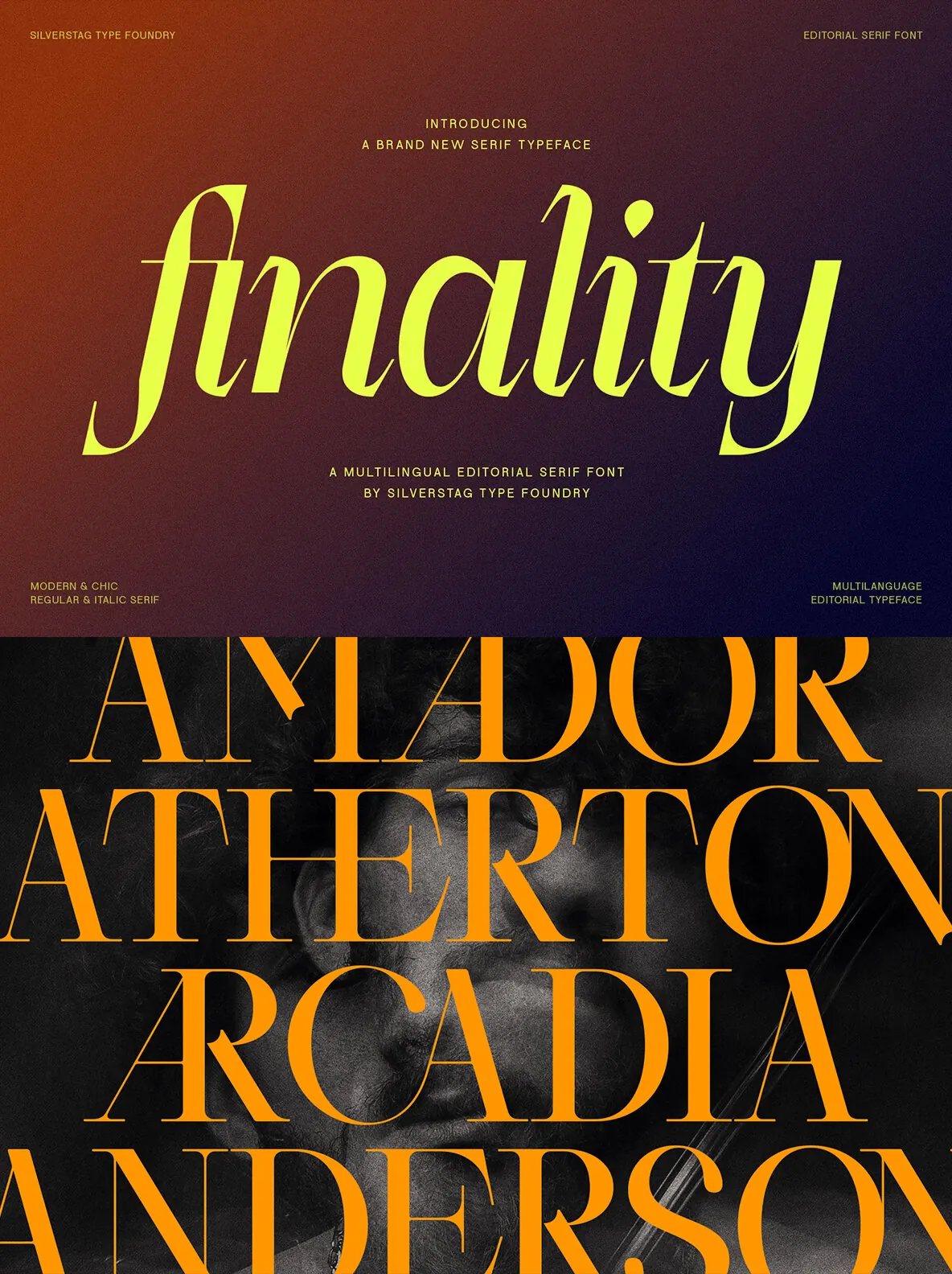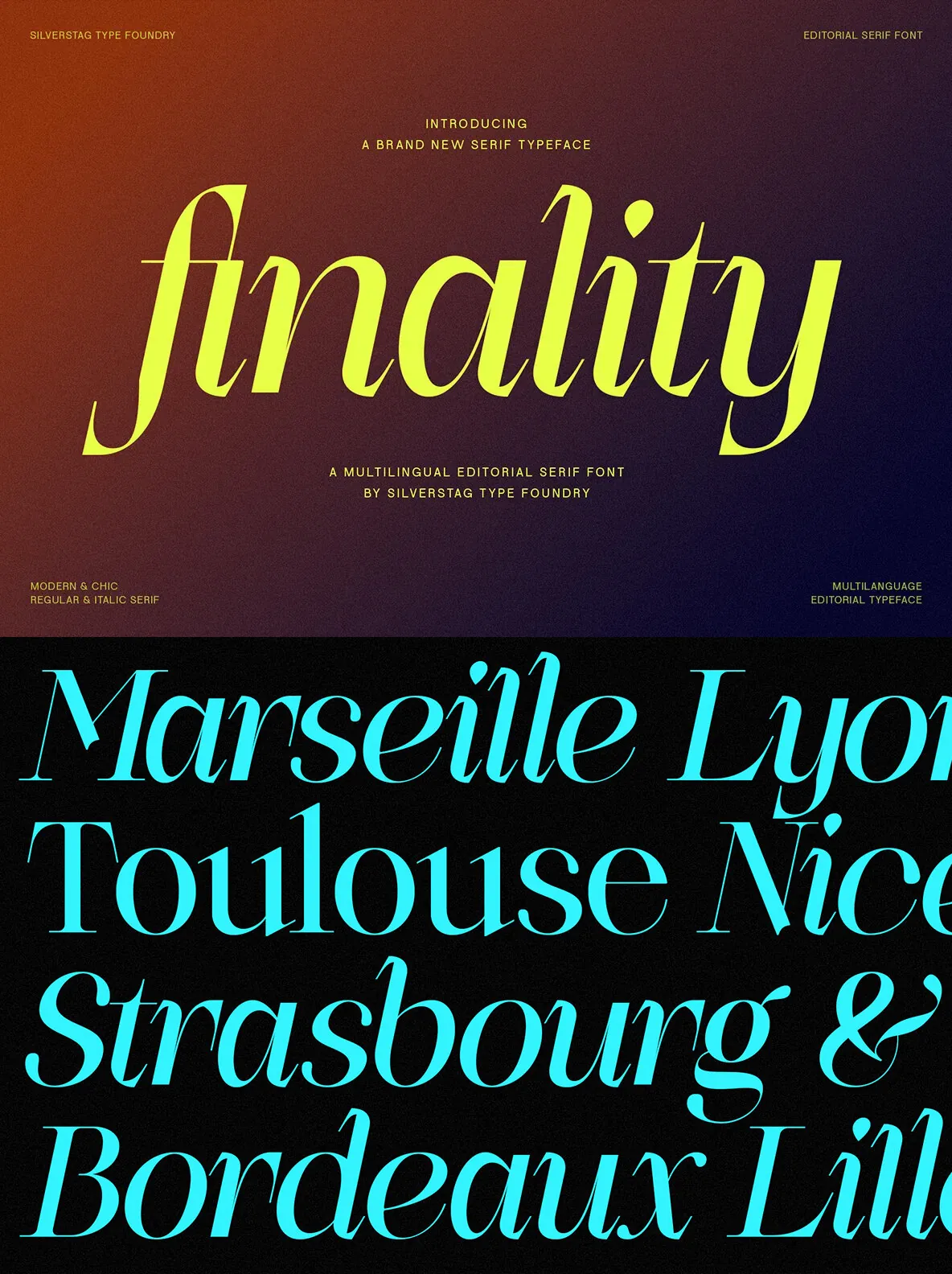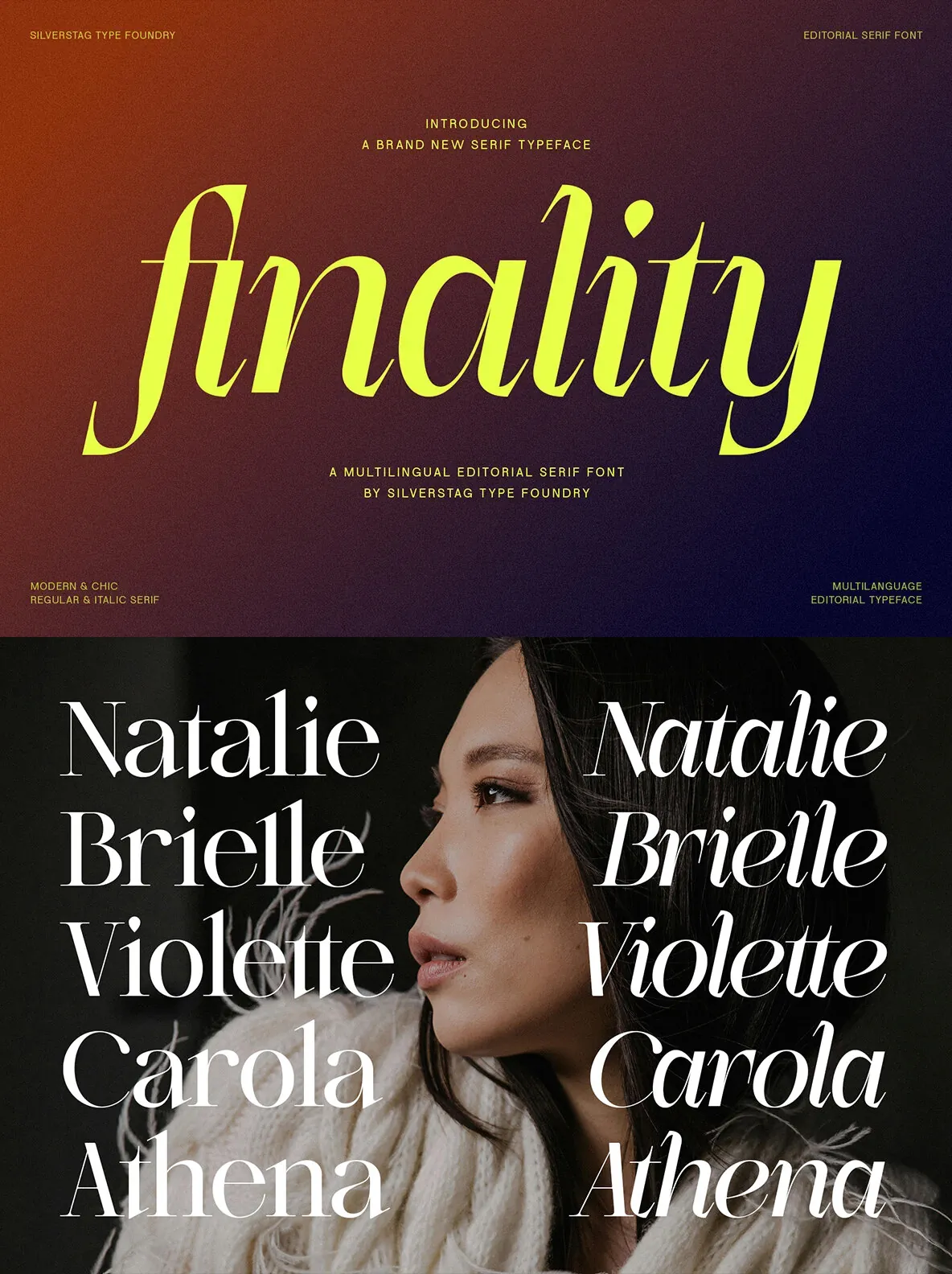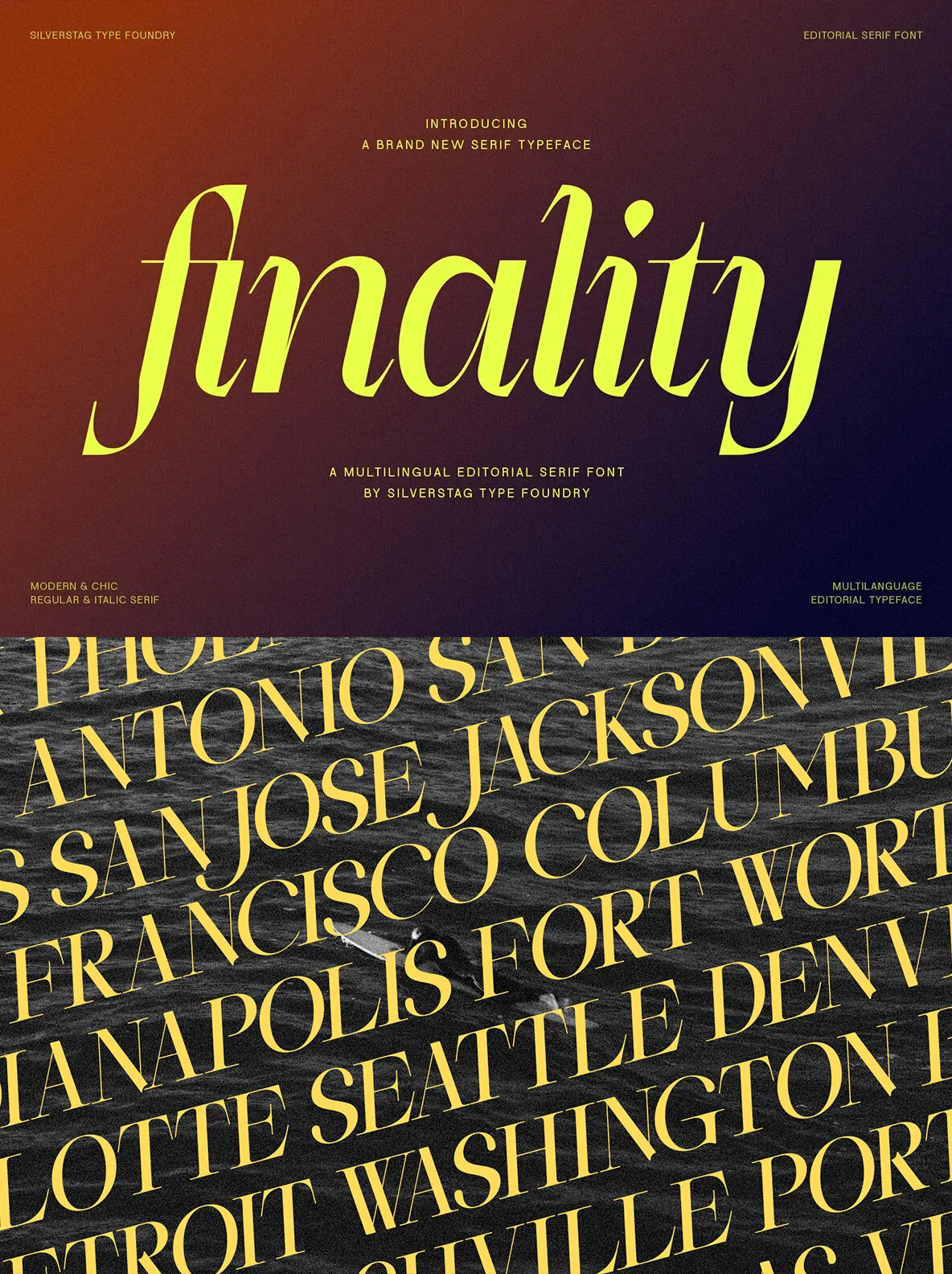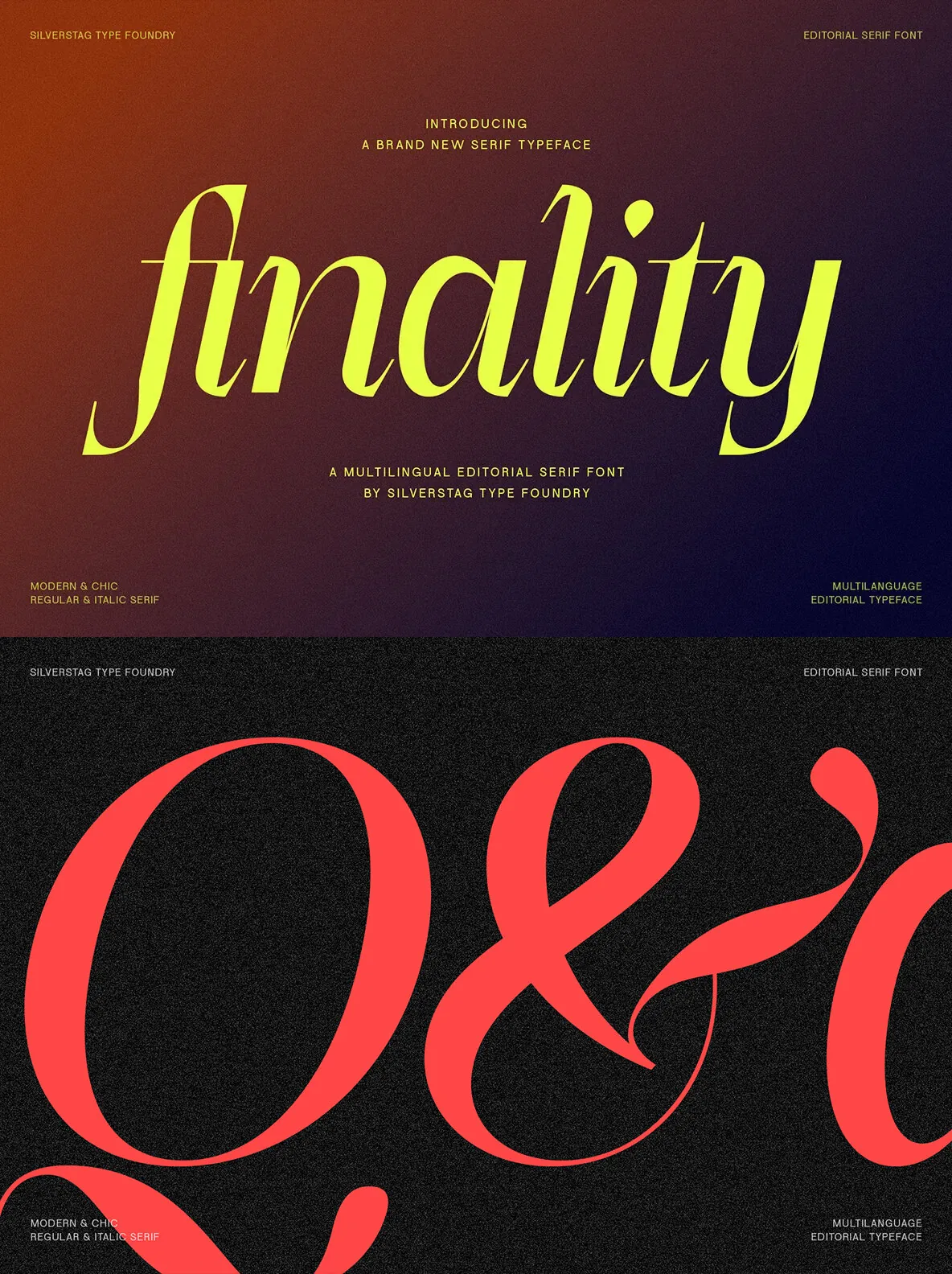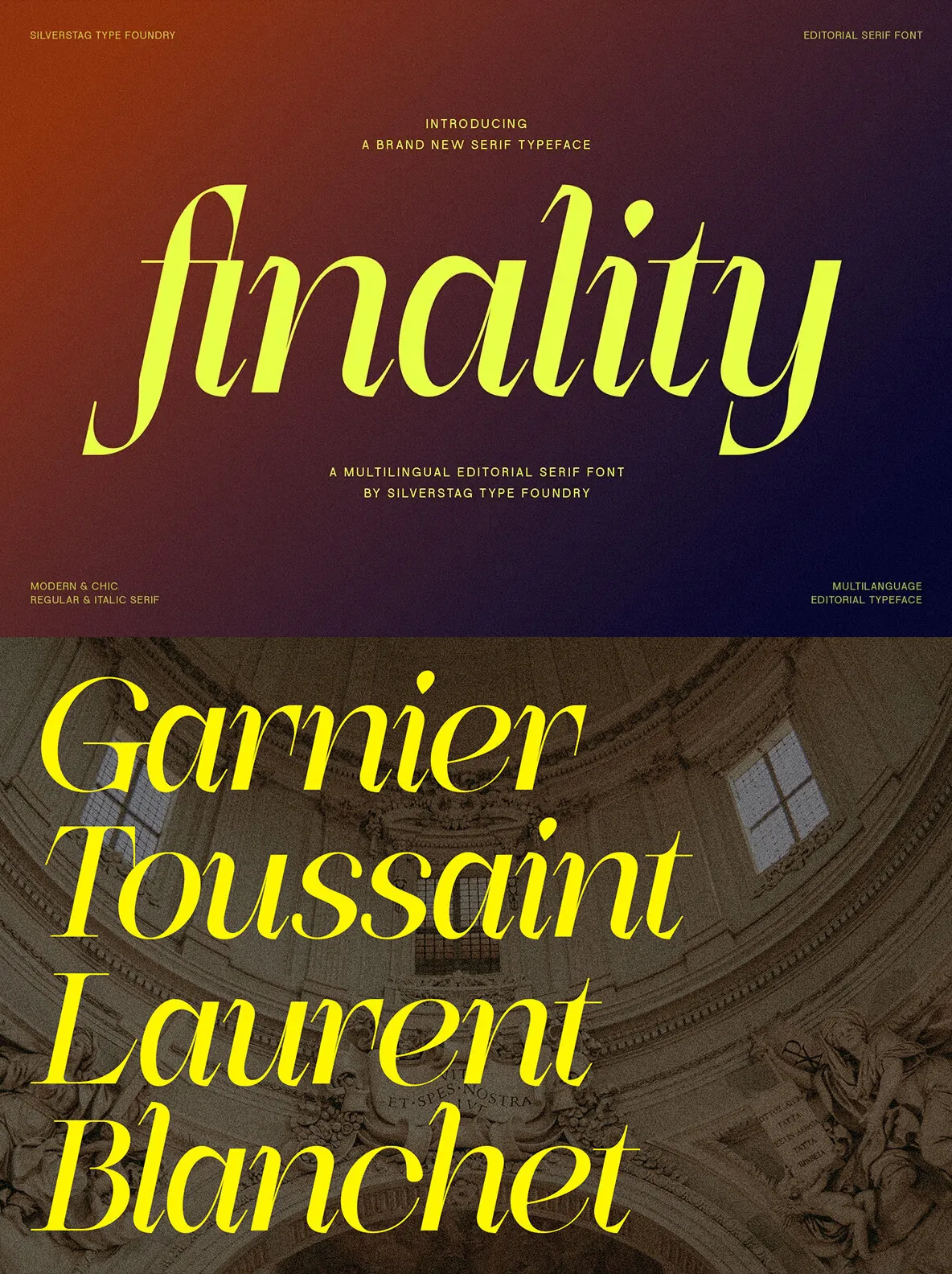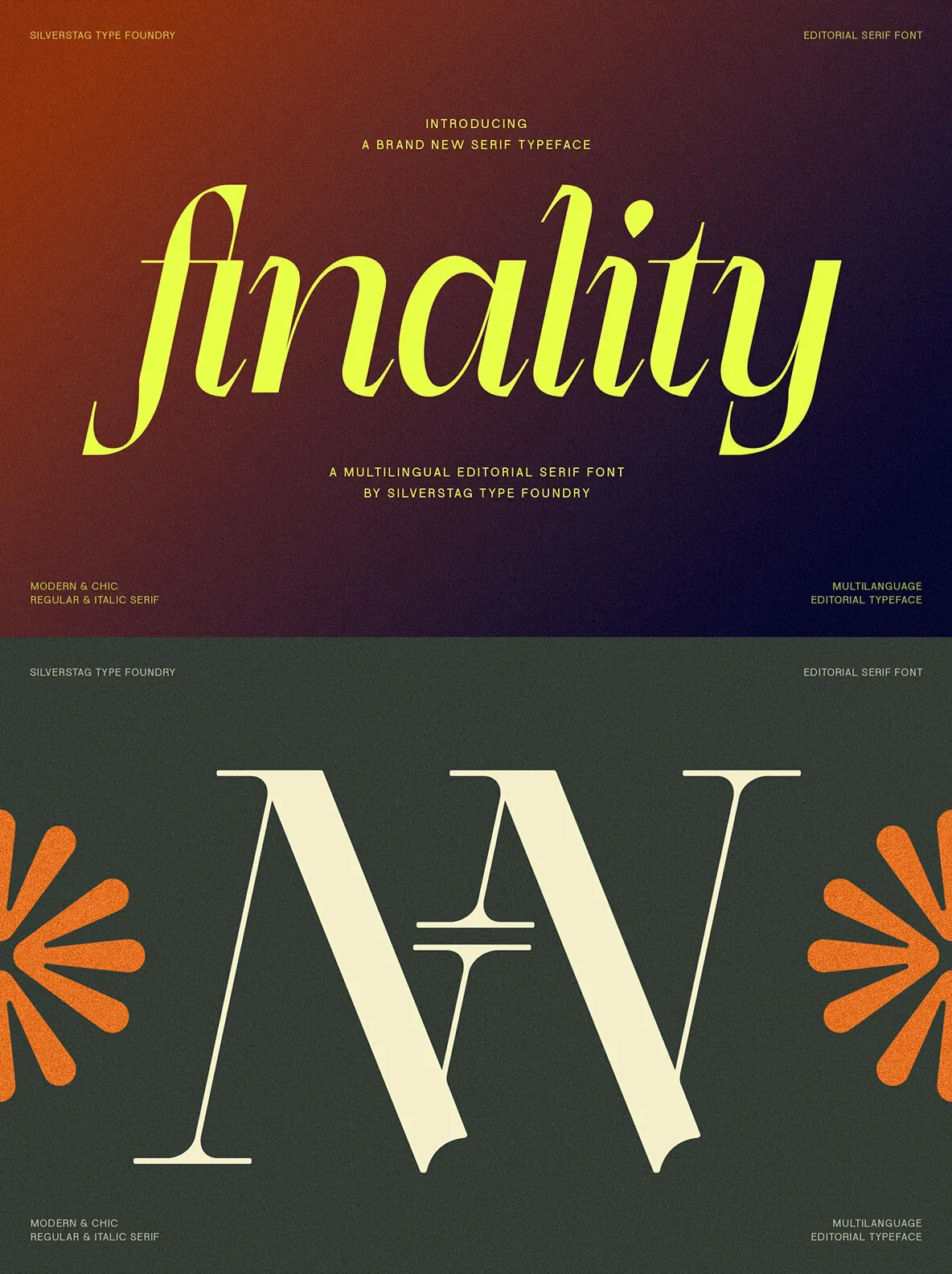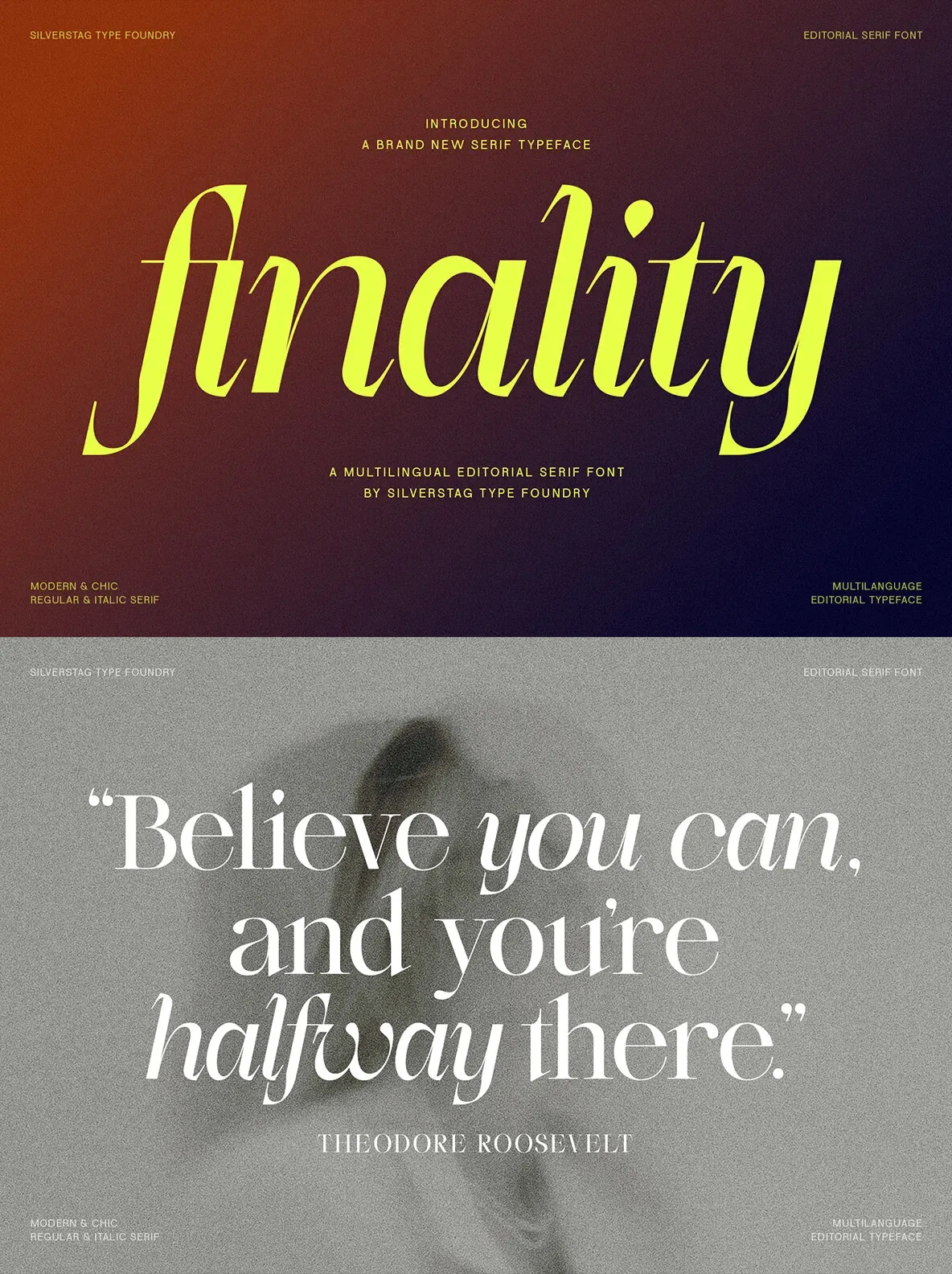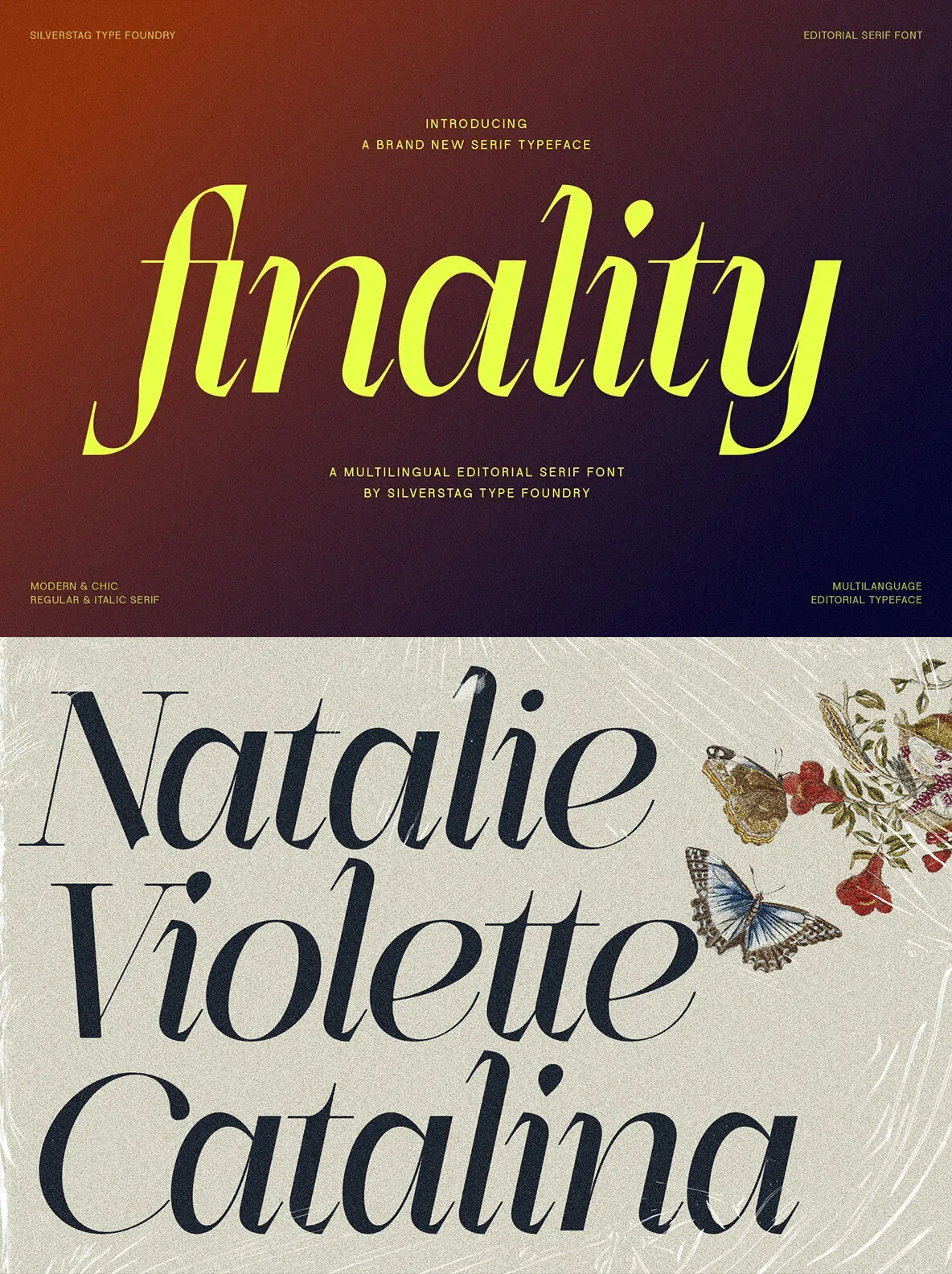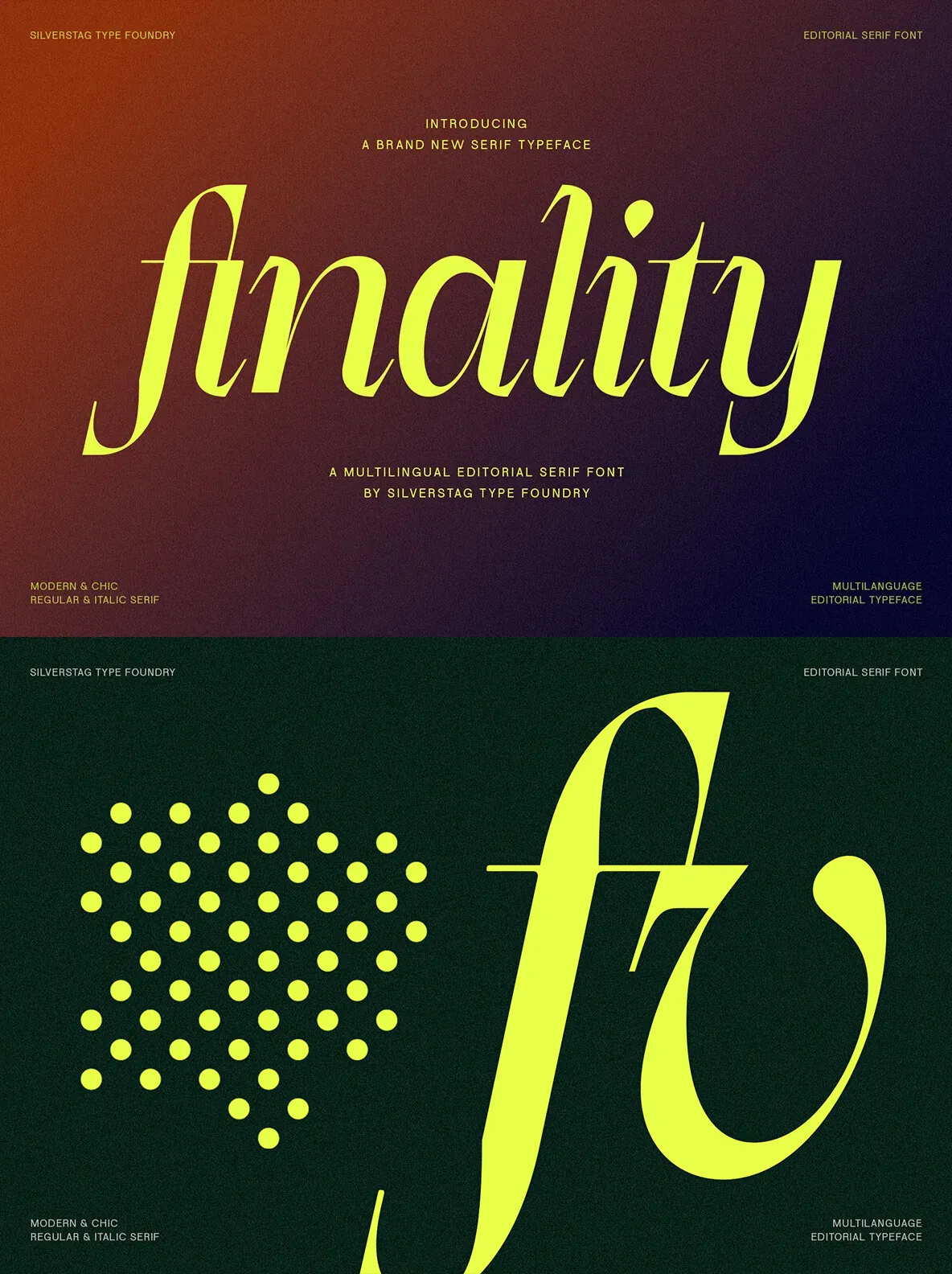
Finality — Editorial Drama, Poised
Introducing Finality: Where Timeless Elegance Meets Modern Expression
Finality is an editorial display serif that stands apart through form and contrast. It pairs striking thin-and-thick strokes with gracefully rounded serifs, creating a confident blend of classic refinement and contemporary edge. Use it when you need a display serif font that reads as considered, expressive, and typographically precise.
With support for over 90 languages and an extensive library of over 65 thoughtfully crafted ligatures, Finality suits both detail-driven typography and headline-led design. Set attention-grabbing headlines, design elegant invitations, or build a captivating editorial spread with a clear balance of beauty and functionality.
Choose from the classic regular style
for a polished, timeless aesthetic—ideal when your layout needs a measured touch of sophistication.
Or, embrace the expressive italic
, defined by a unique mix of sharp and rounded lines that brings dynamism and personality to the page.
Finality is more than just a font; it’s a tool for self-expression. It works for designers, writers, and creatives aiming to leave a lasting impression—whether for a personal project or a high-profile campaign—while keeping elegance and impact at the center of the message.